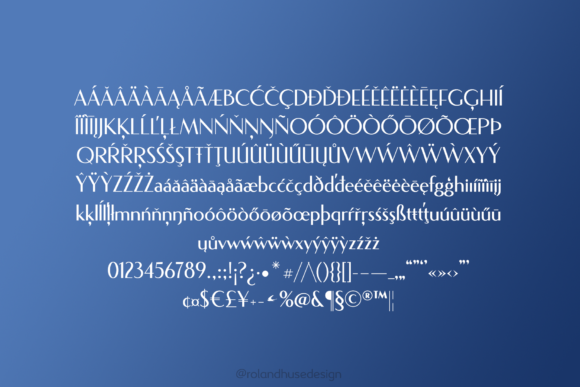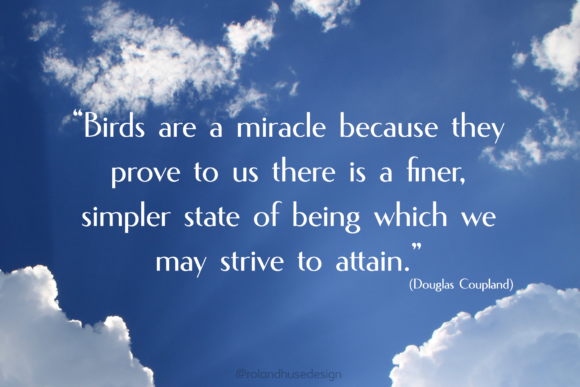
Introduction to Fecske Font
The Fecske is an art deco sans serif font.
Fecske means Swallow and this little bird symbol you can see on the logo of the poster is included in place of the โinfinityโ symbol (option + 5 or copy paste ).